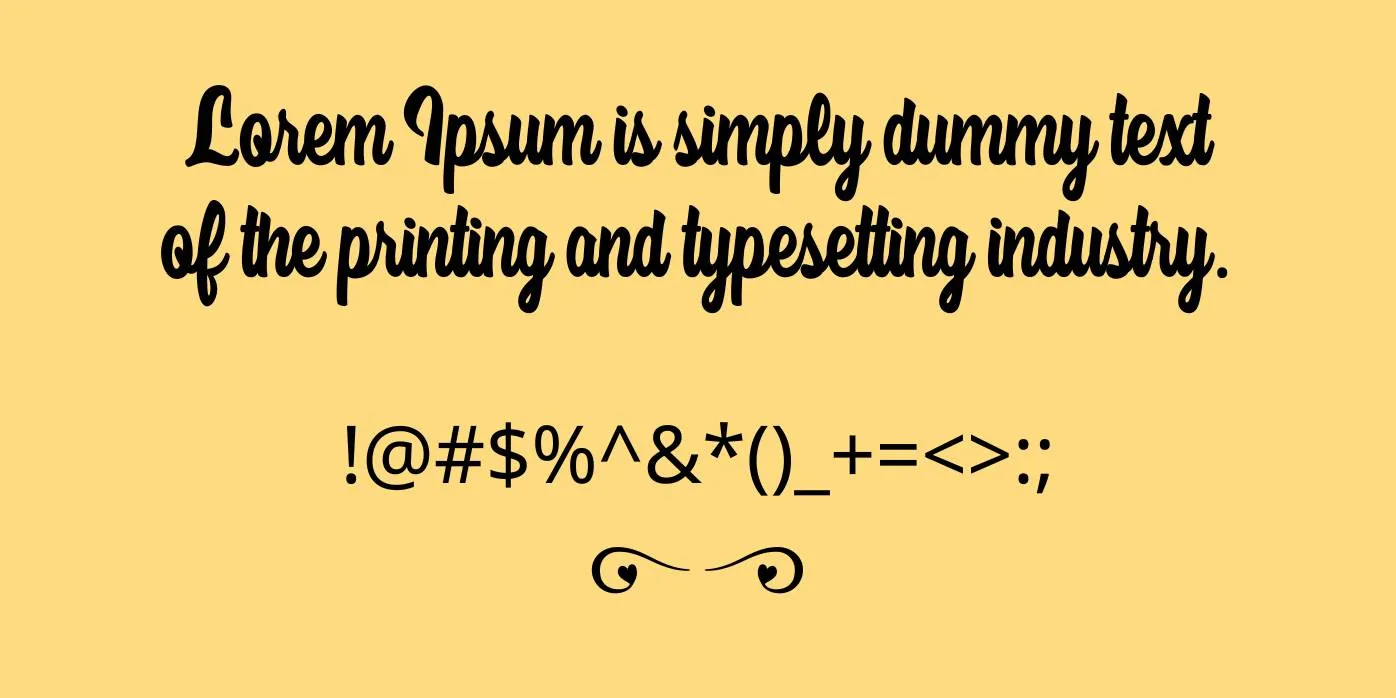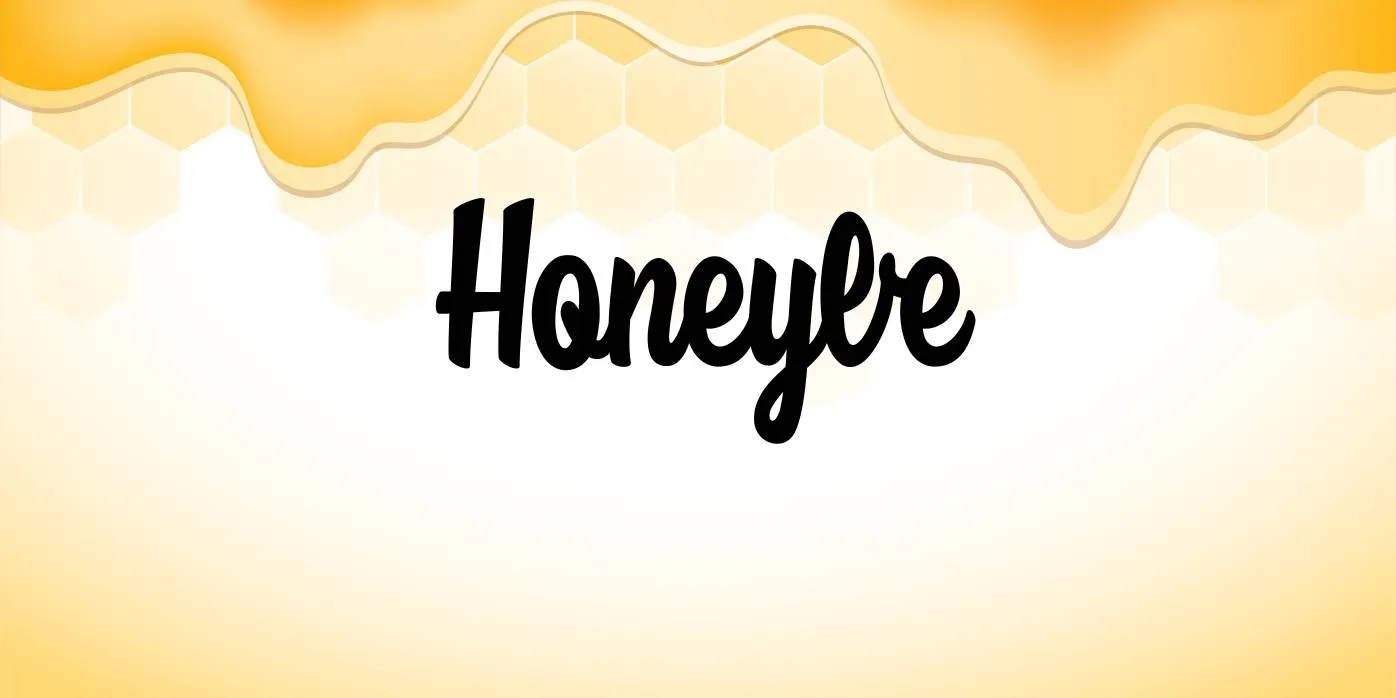
Honeybe Font
Billy Argel Fonts ® is the designer of Honeybe Font. This typeface is a script type of font. The characters of this texture are bold, stylish, readable, and clear. The glyphs for this typeface are 308 in number.
The characters of this typeface support all capital letters, small letters, numbers, and 6 special letters. This is a stunning typeface and is free for projects and designs that do not generate any money. This texture is available in both TTF and OTF file formats. There is only one style for this script type of font.